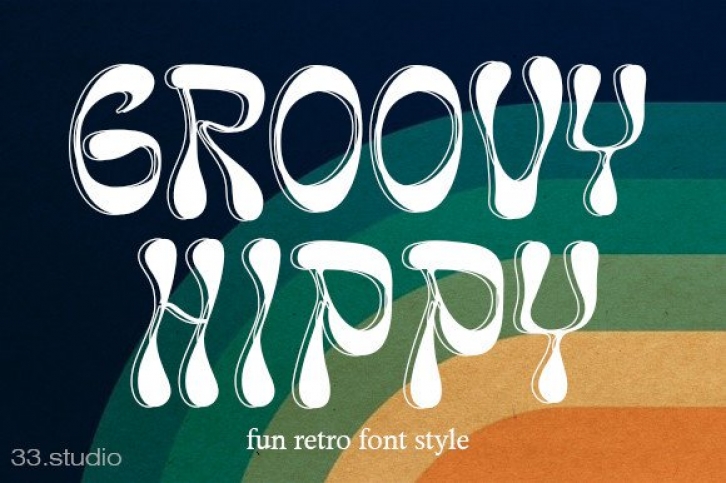
Groovy Hippy is a fun and curvaceous display font. With its cool and groovy vibe, this font is suitable for a wide spectrum of applications. Add it confidently to your projects and you will love the results!